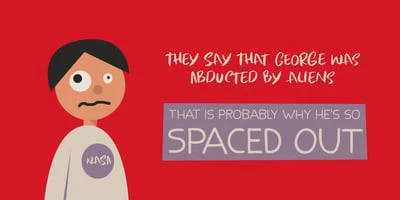
Flying Saucer Font
Flying Saucer Font delivers a futuristic typeface that embodies extraterrestrial mystery and space-age sophistication with cosmic elegance. However, for commercial use, you must purchase this font. You can download it for free for testing purposes only.
Flying Saucer Font excels in sci-fi design applications including UFO research publications, science fiction movie posters, space exploration documentaries, futuristic technology branding, alien-themed entertainment venues, cosmic gaming interfaces, extraterrestrial convention materials, space tourism campaigns, astronomical observatory signage, and otherworldly lifestyle brands. This mysterious typeface brings alien authenticity to cosmic design projects.
What makes Flying Saucer Font truly exciting is its perfect capture of extraterrestrial aesthetics with sleek letterforms that suggest advanced alien technology and interstellar travel through sophisticated geometric construction. The font features streamlined characters with UFO-inspired curves and cosmic proportions that evoke the mystery and wonder of potential alien visitation. Its otherworldly personality and space-age character make it ideal for brands exploring themes of cosmic mystery, scientific discovery, and audiences fascinated by UFO phenomena, space exploration, and the infinite possibilities of extraterrestrial life.
The Flying Saucer Font family typically includes Regular weight with potential outline and glow variations that enhance its alien character. These cosmic options provide designers with complete extraterrestrial styling while maintaining the font's distinctive space-age elegance and mysterious presentation across various sci-fi applications and cosmic contexts.
Whether you're developing space-themed branding, creating UFO research campaigns, or designing extraterrestrial marketing materials, Flying Saucer Font provides the cosmic authority and alien sophistication that otherworldly projects require. Its exceptional mystery and space-age appeal make it invaluable for designers working with science fiction entertainment, space research organizations, and cosmic-focused brands requiring typography that celebrates the wonder of potential alien contact, space exploration, and the enduring human fascination with the mysteries of the universe and extraterrestrial possibilities.